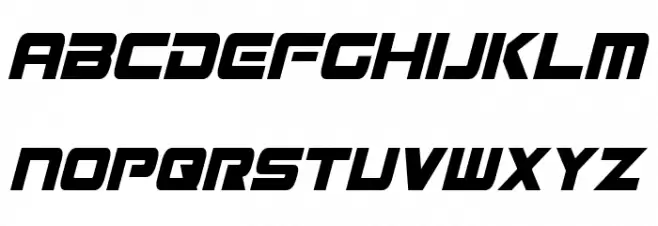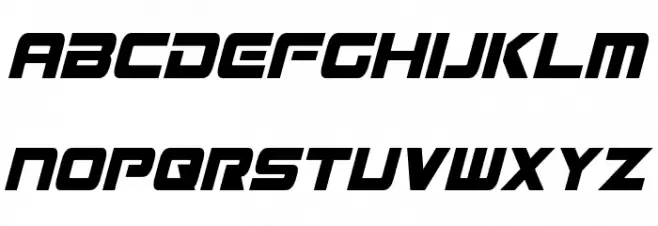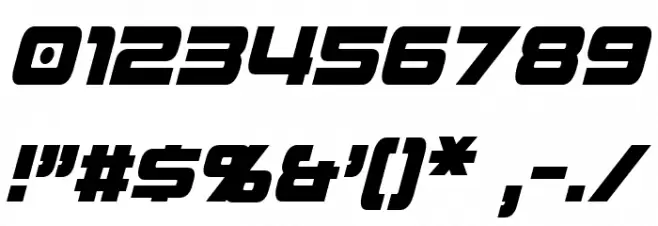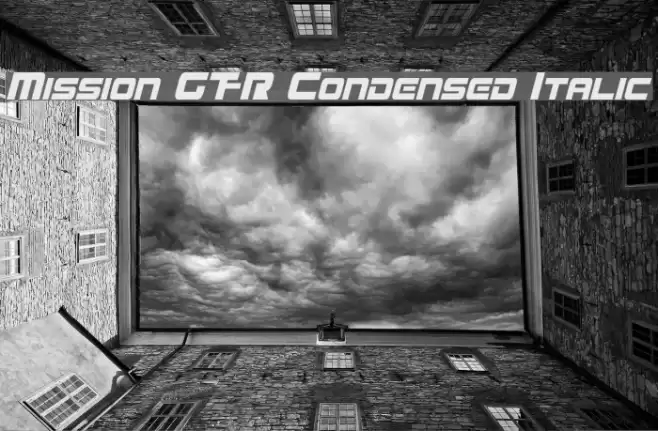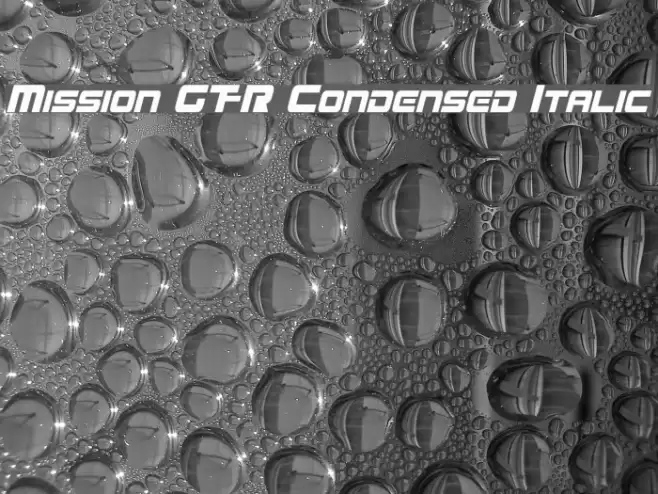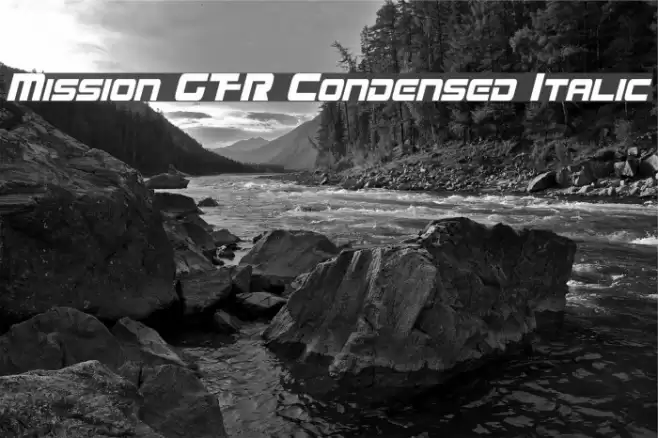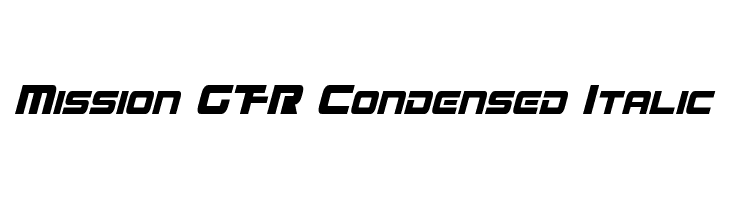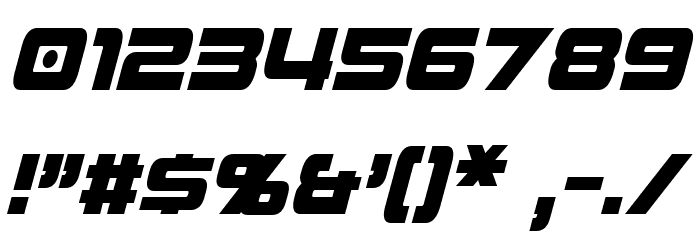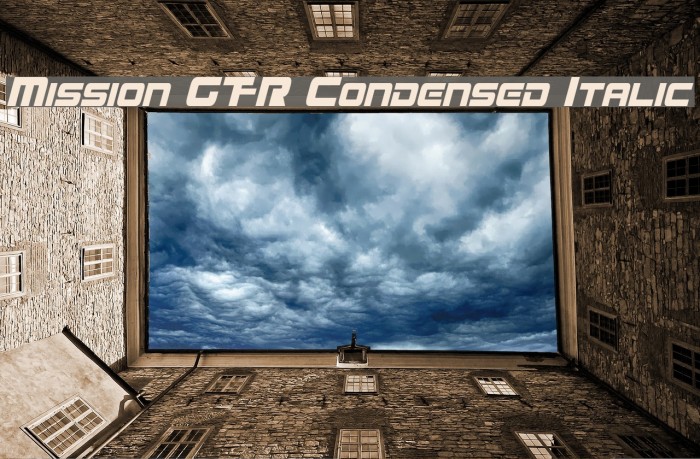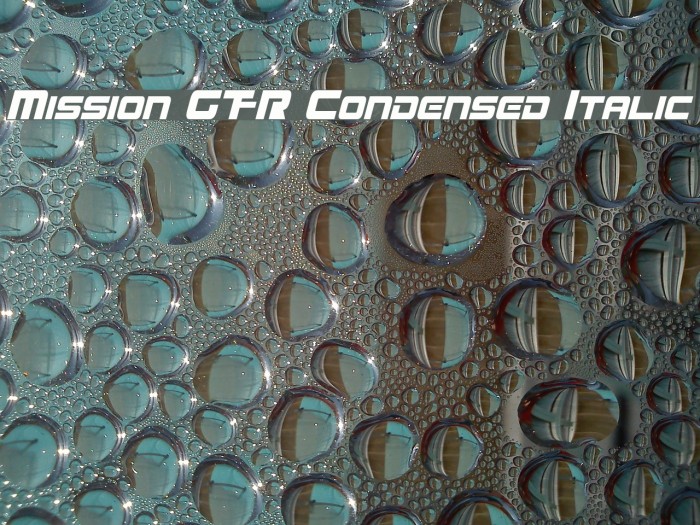
Mission GT-R Condensed Italic
This font exhibits a bold and dynamic style with a distinctly modern and futuristic appearance. The characters are condensed and italicized, giving them a sleek and streamlined look. The angular cuts and sharp edges contribute to its aggressive and sporty feel, making it stand out in any design. The uppercase letters are uniform in height, while the lowercase letters maintain a consistent style, enhancing readability. The numbers and special characters are designed to match the overall aesthetic, ensuring a cohesive look across all text elements. This font is ideal for projects that require a strong visual impact.
A bold, condensed, and italicized font with a modern, futuristic style.
- Proposed Projects: Ideal for automotive branding, sports team logos, tech product packaging, and dynamic poster designs.
- Width: Condensed